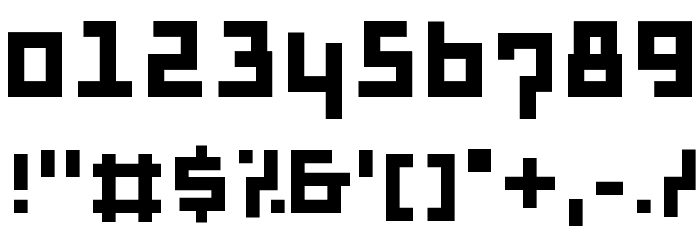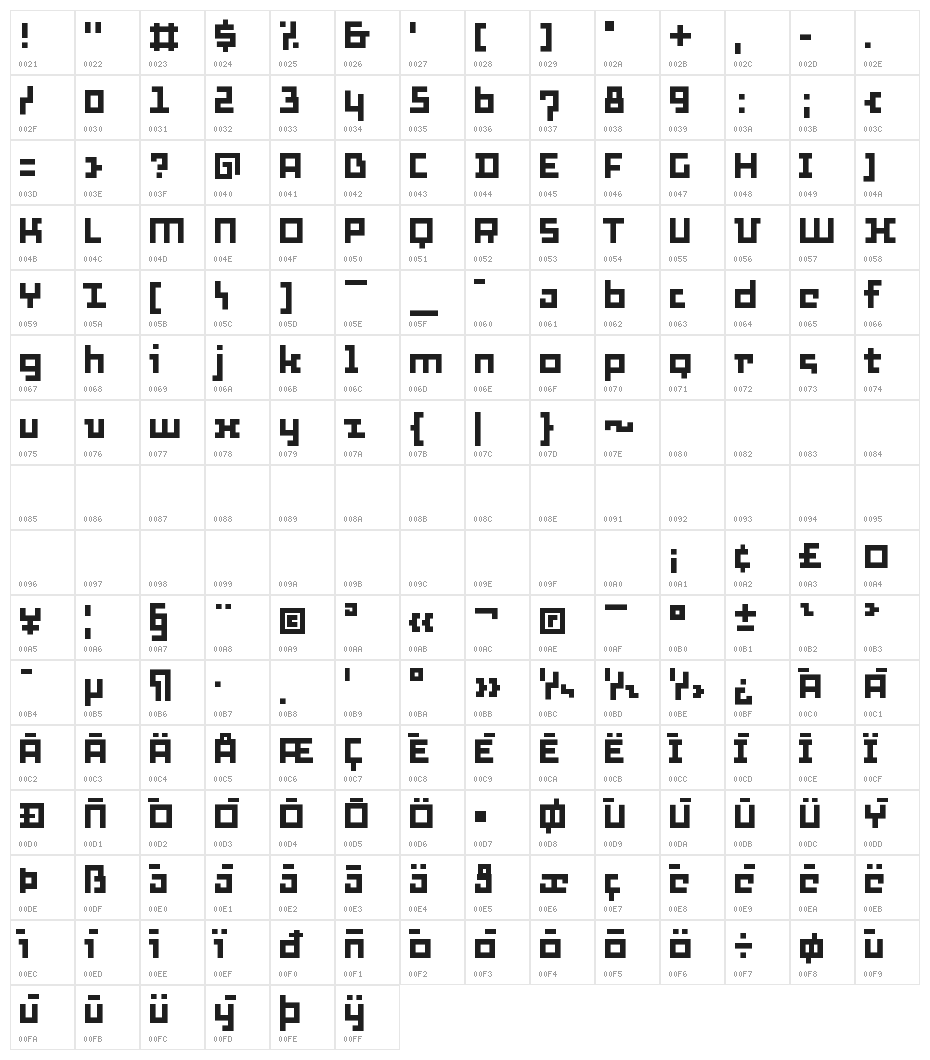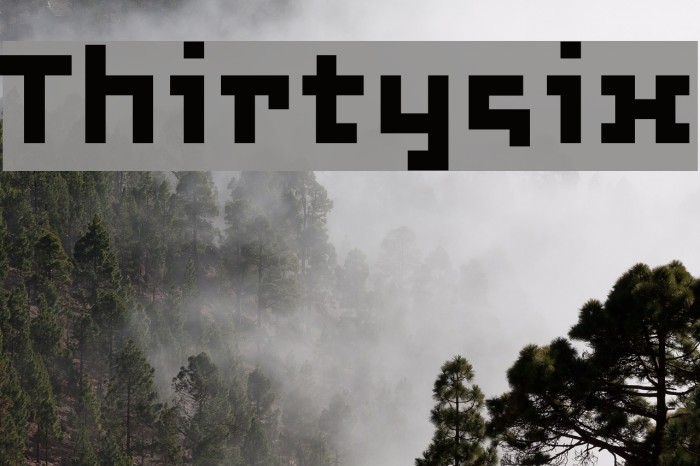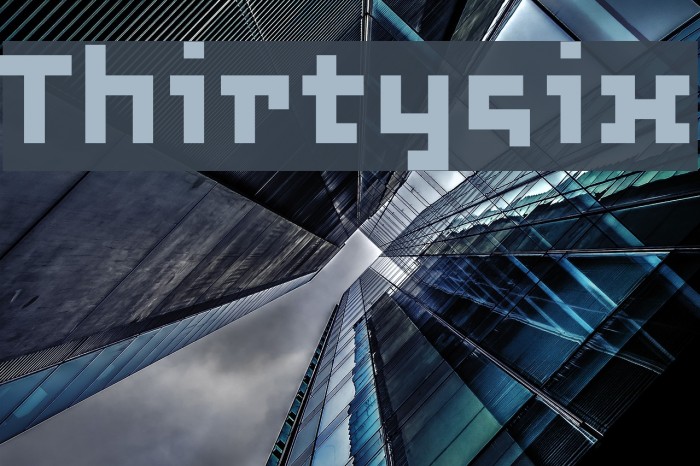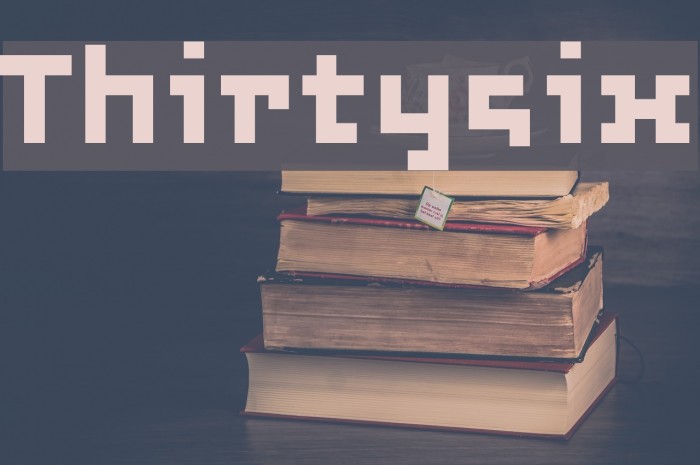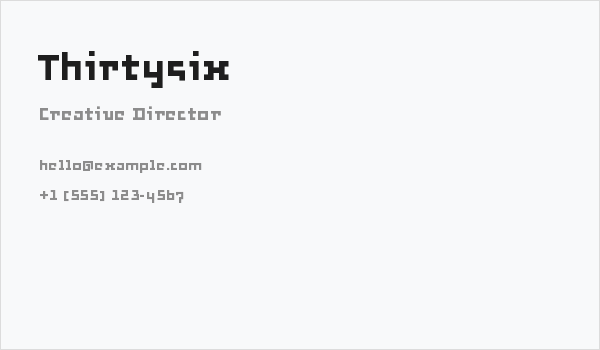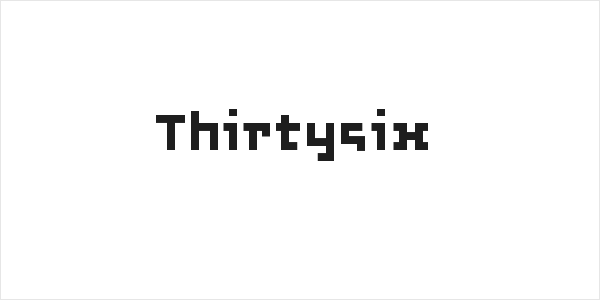
Thirtysix Description
This font features a bold, blocky design with a distinctly pixelated aesthetic reminiscent of early digital displays and retro video games. Each character is constructed with sharp, angular lines and uniform stroke widths, creating a cohesive and geometric appearance. The uppercase and lowercase letters maintain a consistent height, contributing to a monospaced feel, though the font is not strictly monospaced. The numerals and special characters are designed to match the overall style, ensuring visual harmony across all elements. This font's unique style is both nostalgic and modern, making it versatile for various creative applications.
| Overall Style | Retro, Modern |
| Use Case | Headlines, Logos, Digital Art |
| Proposed Projects | Ideal for video game design, digital art projects, retro-themed branding, and tech-related presentations. |